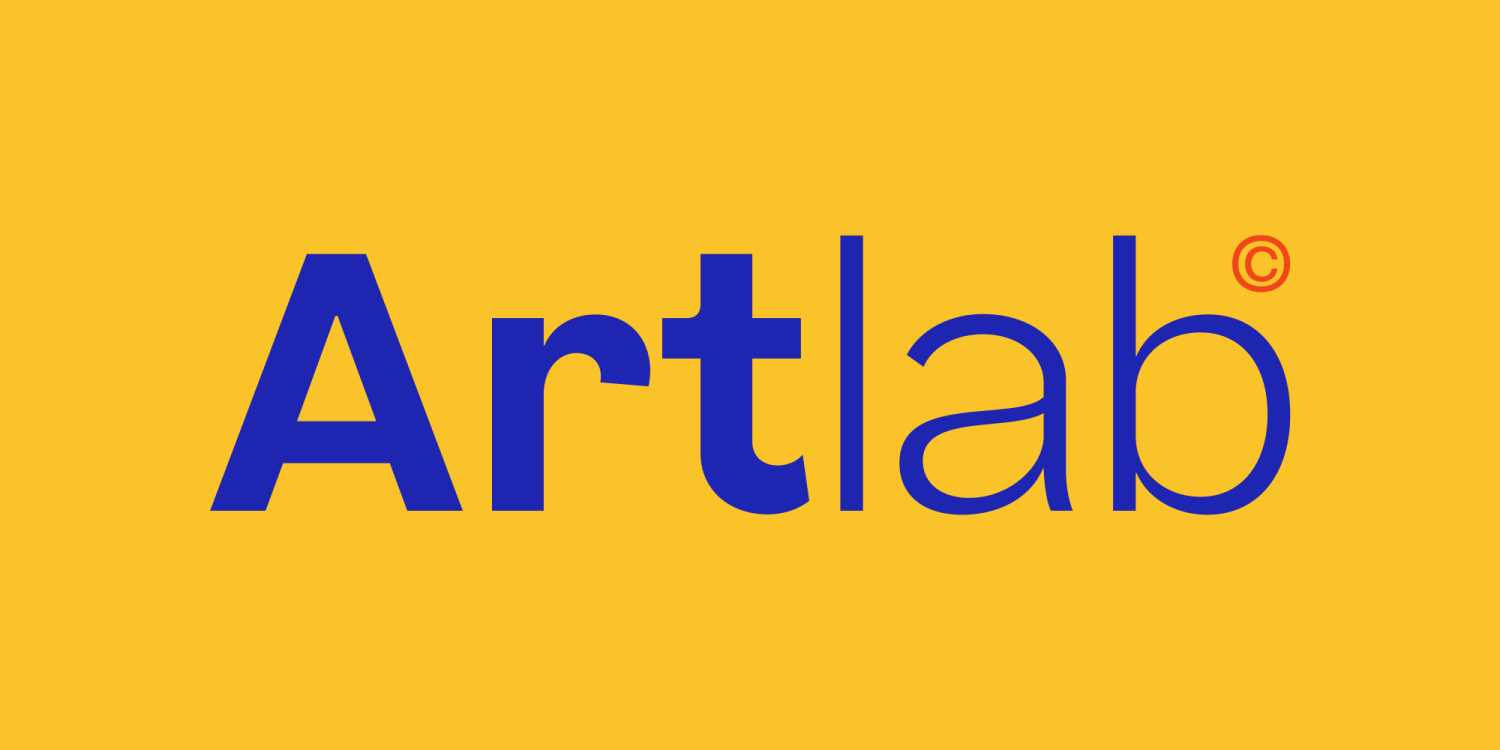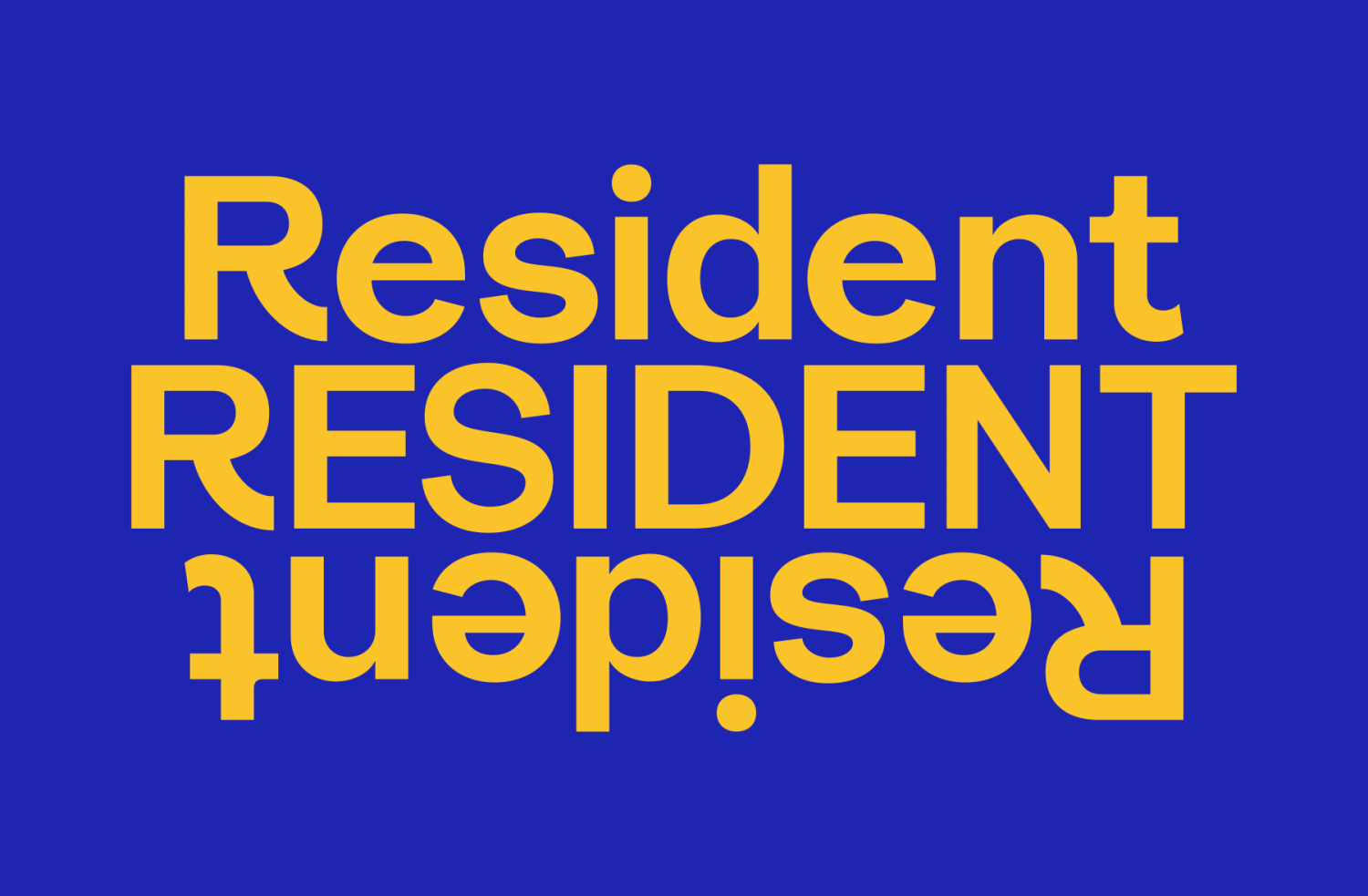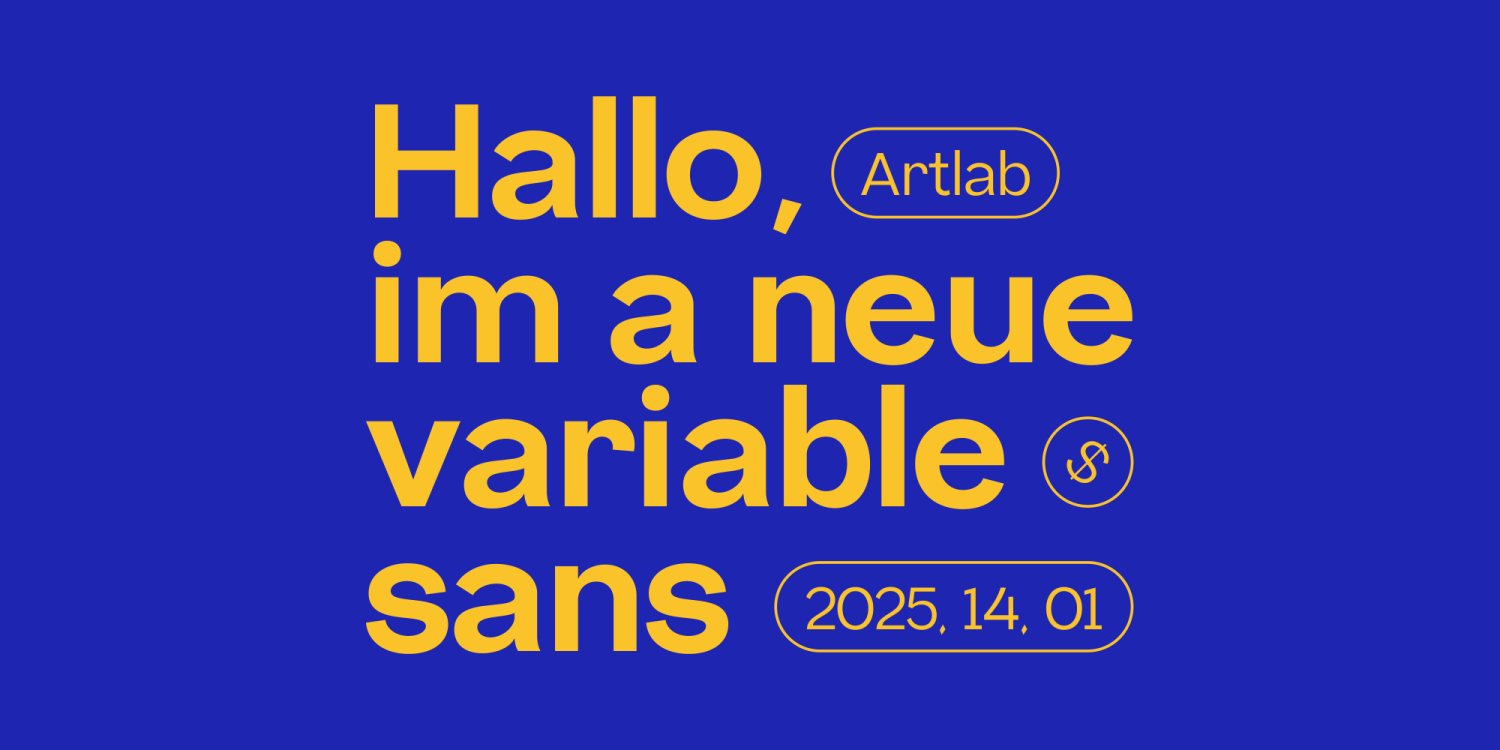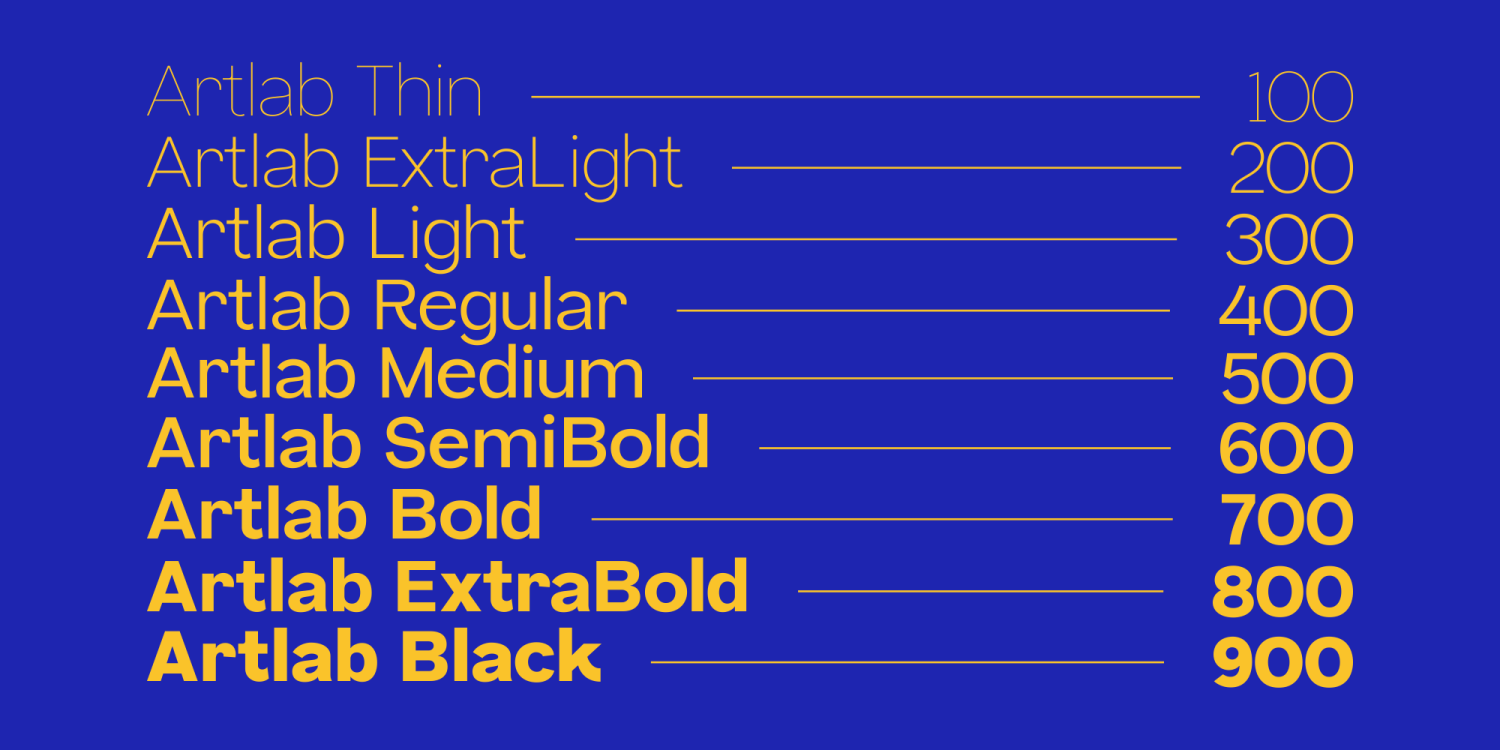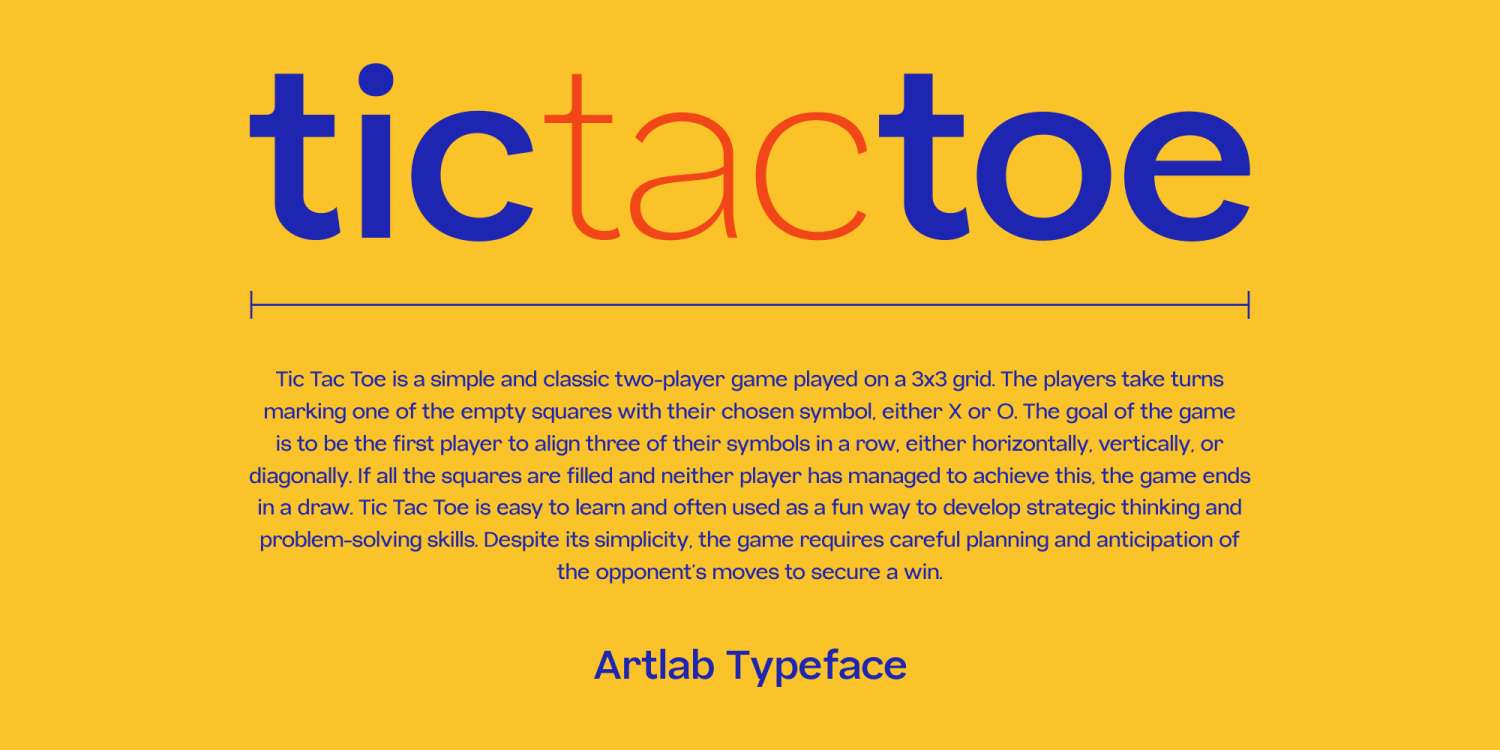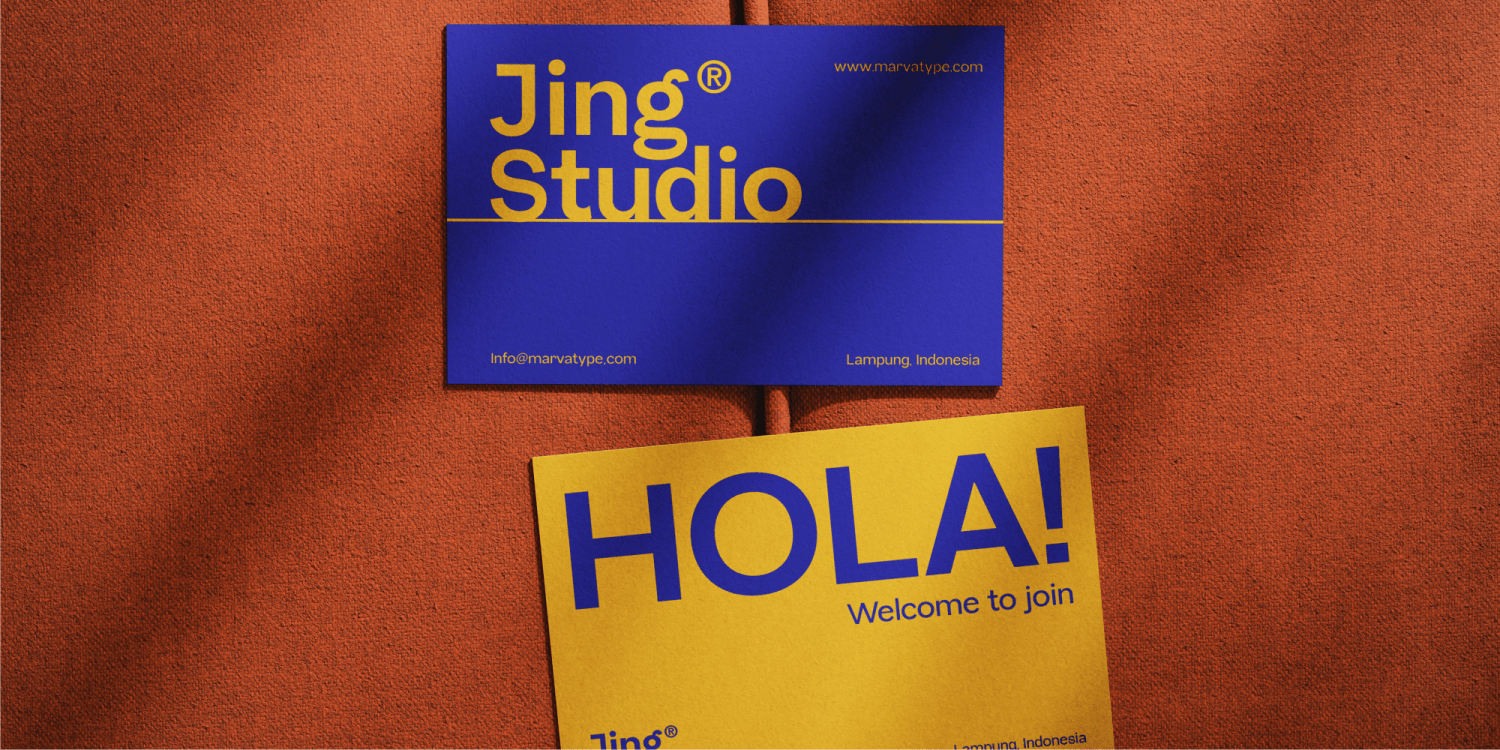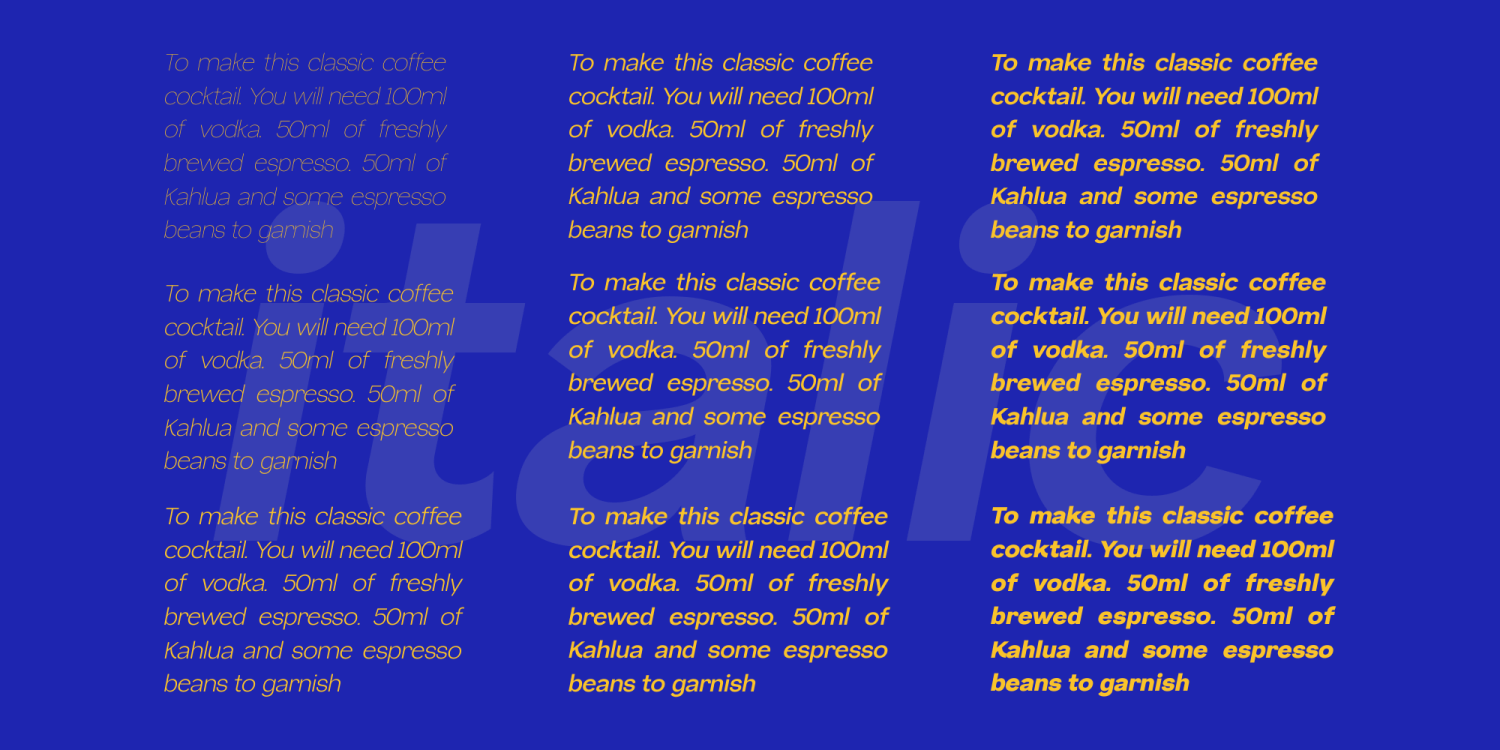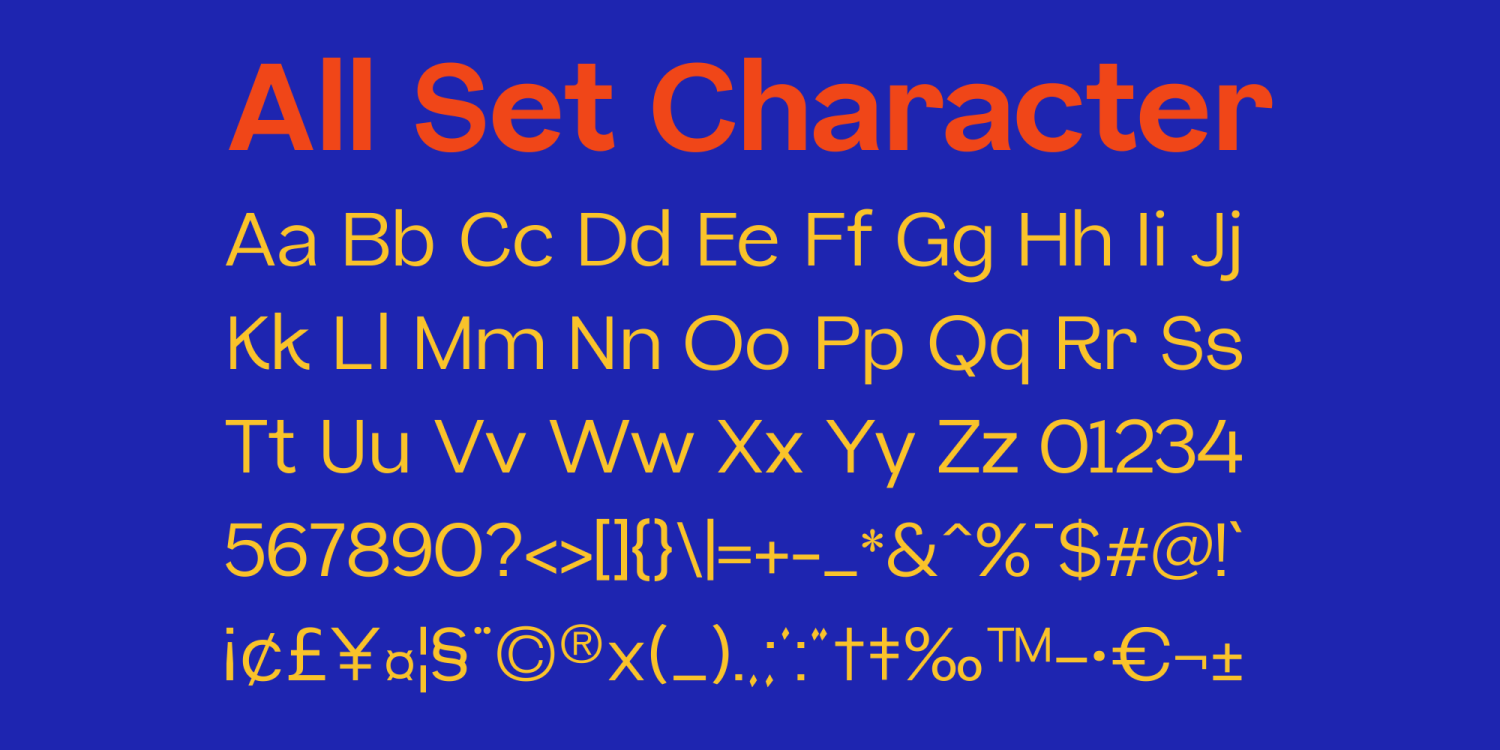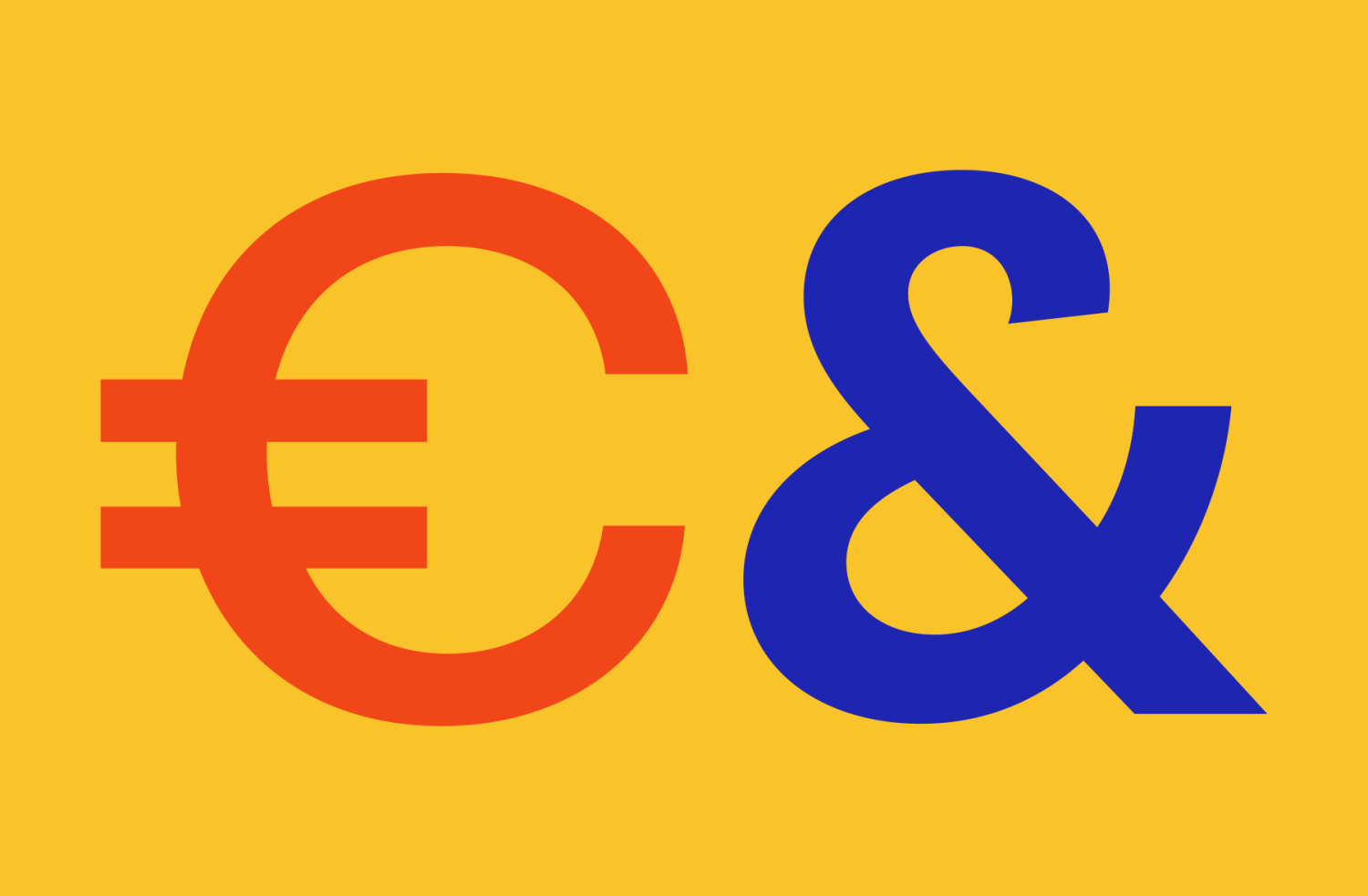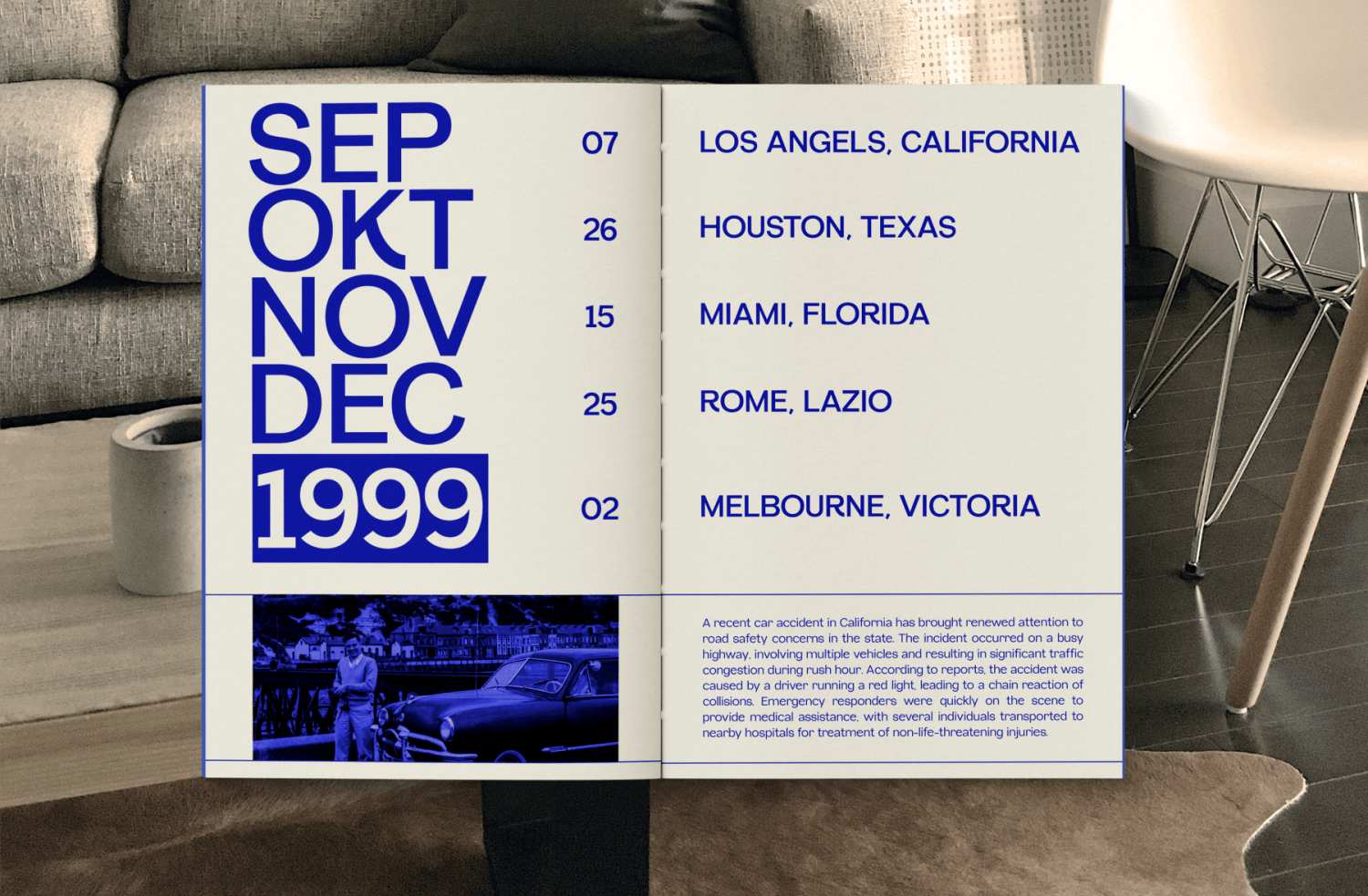
Artlab
Font Family by Marvadesign
Artlab is a modern variable sans-serif typeface celebrated for its clean and visually engaging design. Offering an impressive collection of 18 styles—ranging from Thin, Thin Italic, ExtraLight, ExtraLight Italic, and Light to the robust Black and Black Italic—Artlab provides comprehensive versatility. This extensive selection accommodates a wide range of design needs, from minimalist projects to bold, eye-catching creations.
Ideal for branding, editorial layouts, and digital interfaces, Artlab's adaptable nature allows it to seamlessly integrate into diverse aesthetic requirements. Its clean structure and readability maintain a professional standard, ensuring clear and effective communication across all platforms. Whether you're designing for subtlety or impact, Artlab's balanced design is a reliable choice for any project.